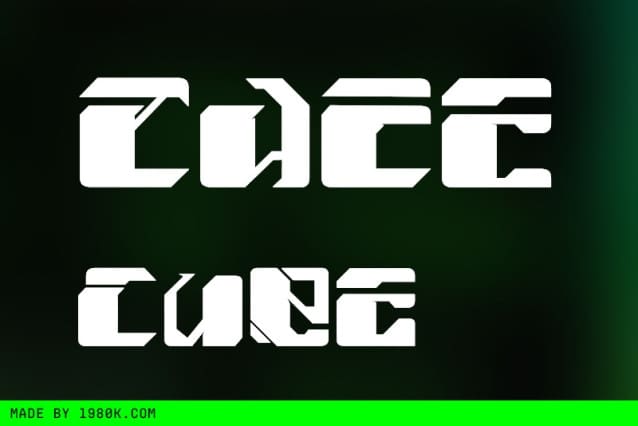
Cuez Ver1 Font
Cuez Ver1 Font is an authentic modern futuristic font that is perfect for professional and product branding needs. This font is suitable for any branding project such as quotes, logos, blog headers, posters, ribbons, letters, invitations, stationery, etc… It is designed to be versatile and flexible that can be used on a variety of projects and mediums. extraordinary in a variety of contexts.